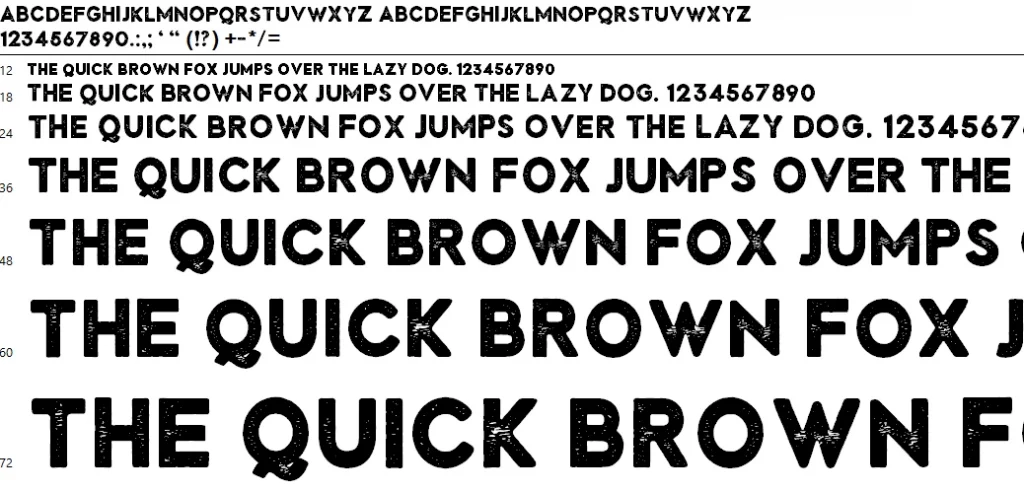
Sonder Font-Download Free
Andrew Herndon designed and shared the Sonder Font. It’s an investigation into the history of lettering. The Sonder font includes Sonder Sans and Sonder Slab. The Typeface comes with ten fonts: Sonder Slab Bold, Bold Rough, Black, Black Rough, Sonder Sans Regular, Regular Rough, Bold, Bold Rough, Black & Black Rough. Having the Lovely sans serif Font is also very effortless. Before installing the fonts, you must first extract them from the ZIP or RAR file, then: Go to Windows 10/8/7 and Install the Font by right-clicking on it.
To help the inner explorer generate powerful headers and logotypes, Sonder uses rough edges and inked center elements. Use the Sonder typeface for logo design, billboards, book covers, and more; I tested it out and thought it was fantastic.
StyleSans-Serif.
DesignerAndrew Herndon